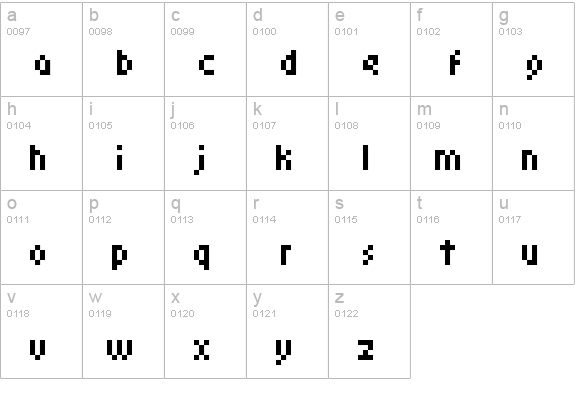
monoeger 05_55 Font Details
Monoeger 05_55 is a sleek and modern font that exudes sophistication and elegance. Its clean lines and sharp angles give it a contemporary edge, making it perfect for a wide range of design projects. With its unique style, Monoeger 05_55 is sure to make a statement and capture the attention of your audience. The best part? Monoeger 05_55 is available for free download at FontsMarket.com. This means that you can easily access this stunning font without any cost, making it a valuable addition to your font collection. Whether you are working on a branding project, designing a website, or creating printed materials, Monoeger 05_55 is a versatile font that will elevate your work to the next level. Don't miss out on the opportunity to enhance your designs with Monoeger 05_55. Download it for free today at FontsMarket.com and start incorporating this stylish font into your projects for a sophisticated and modern touch.